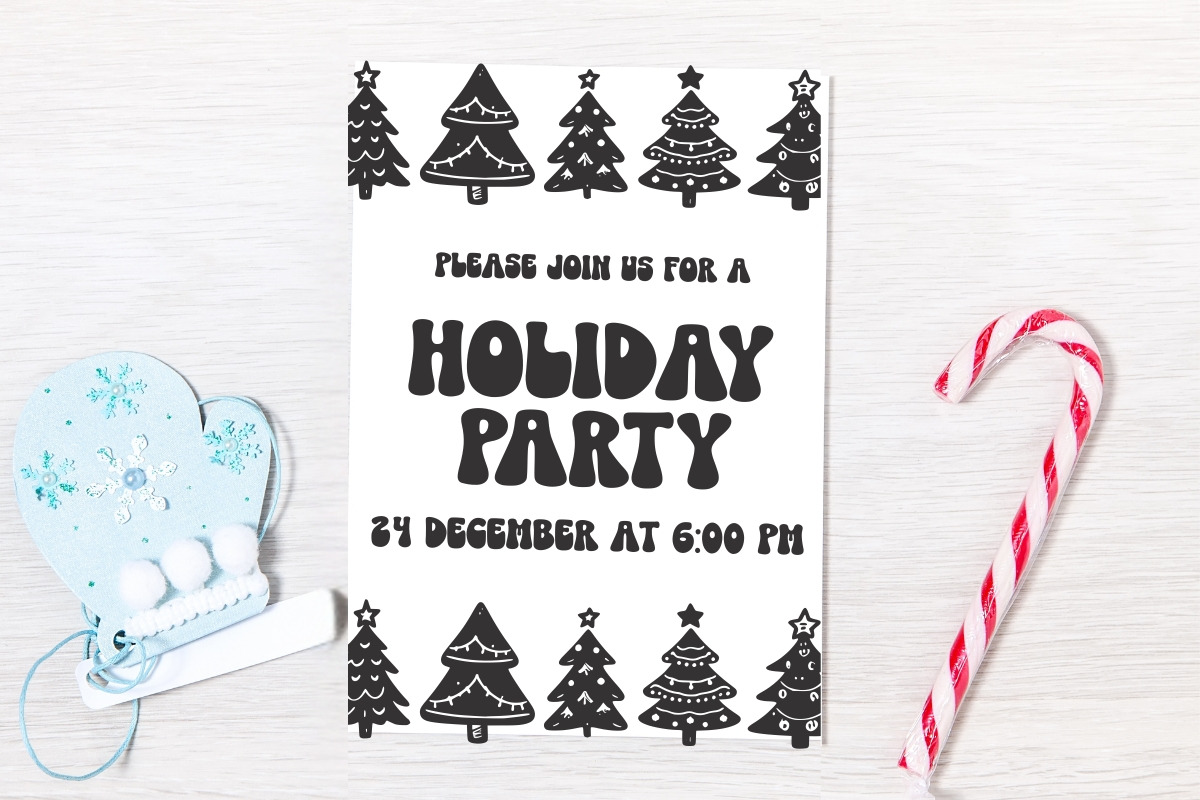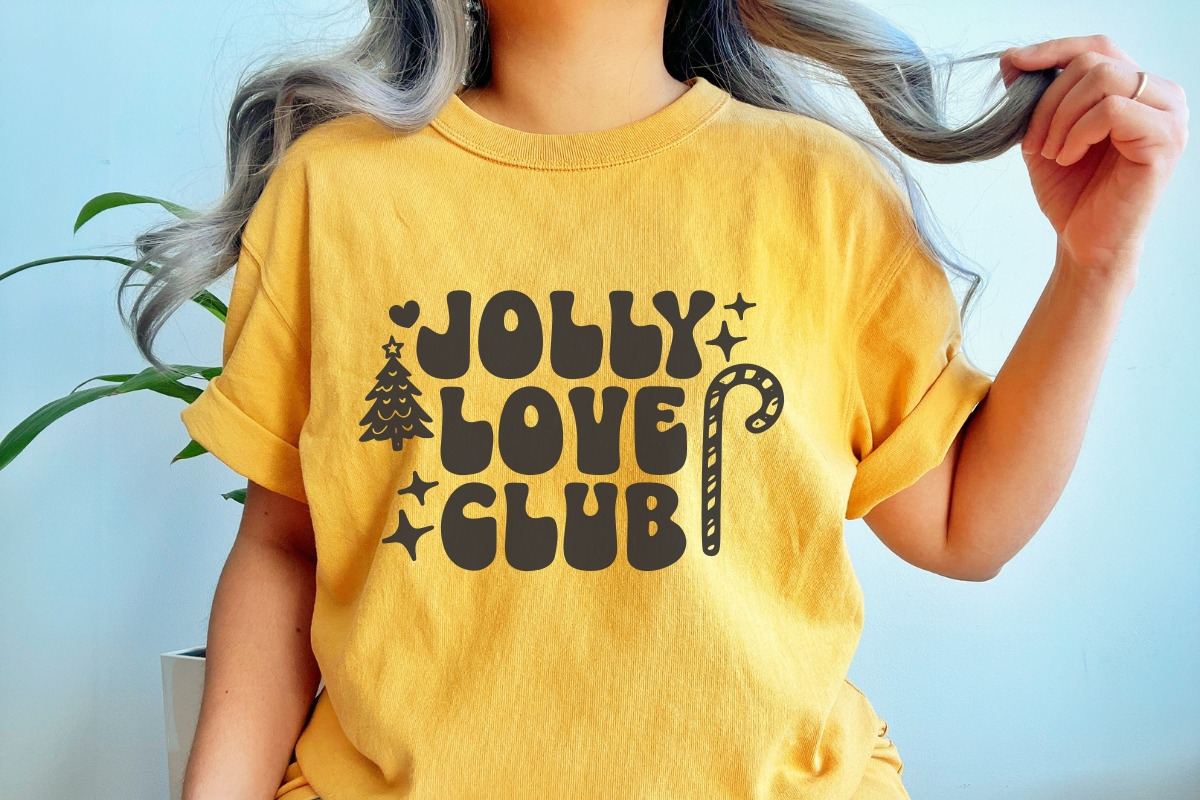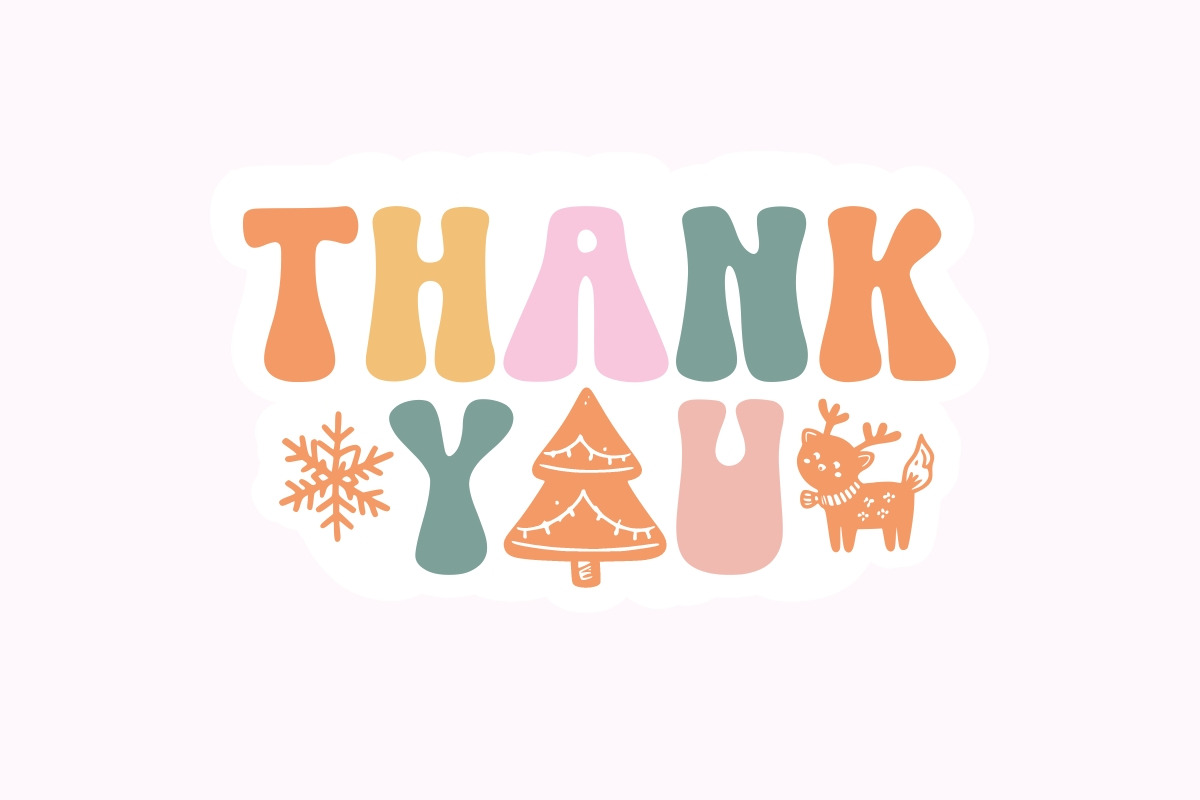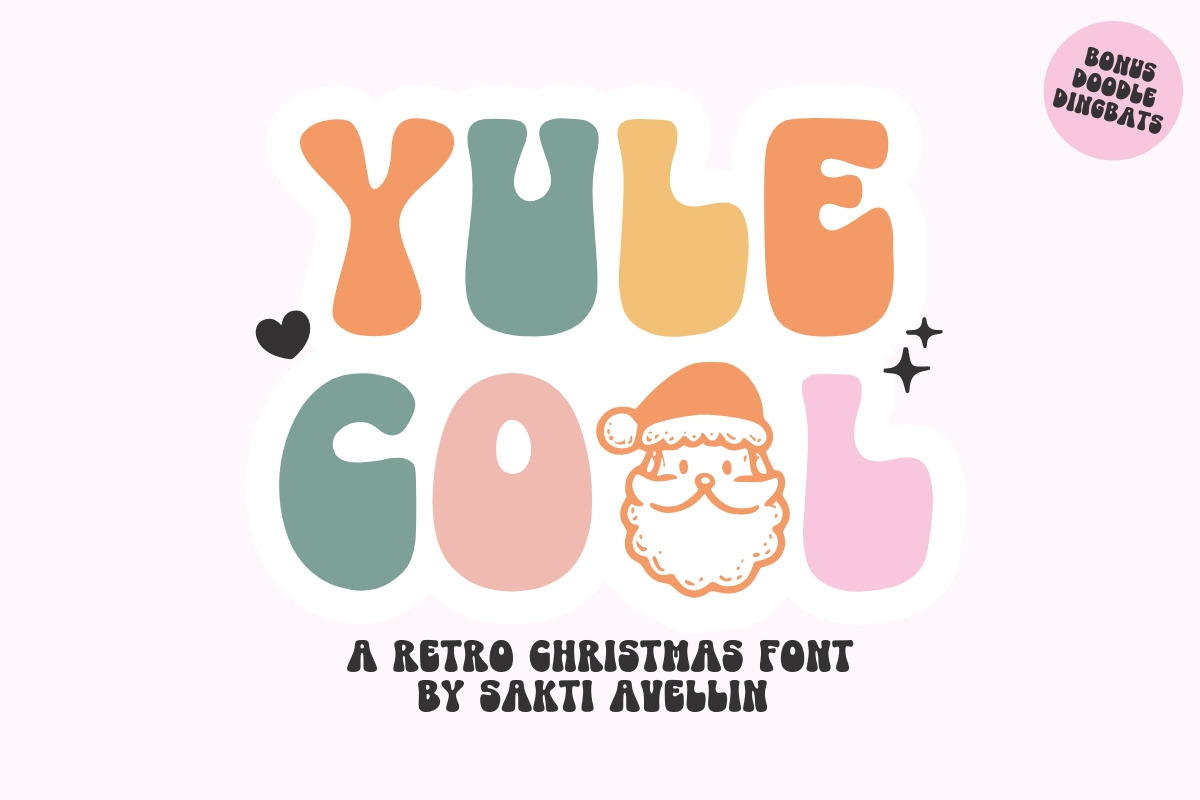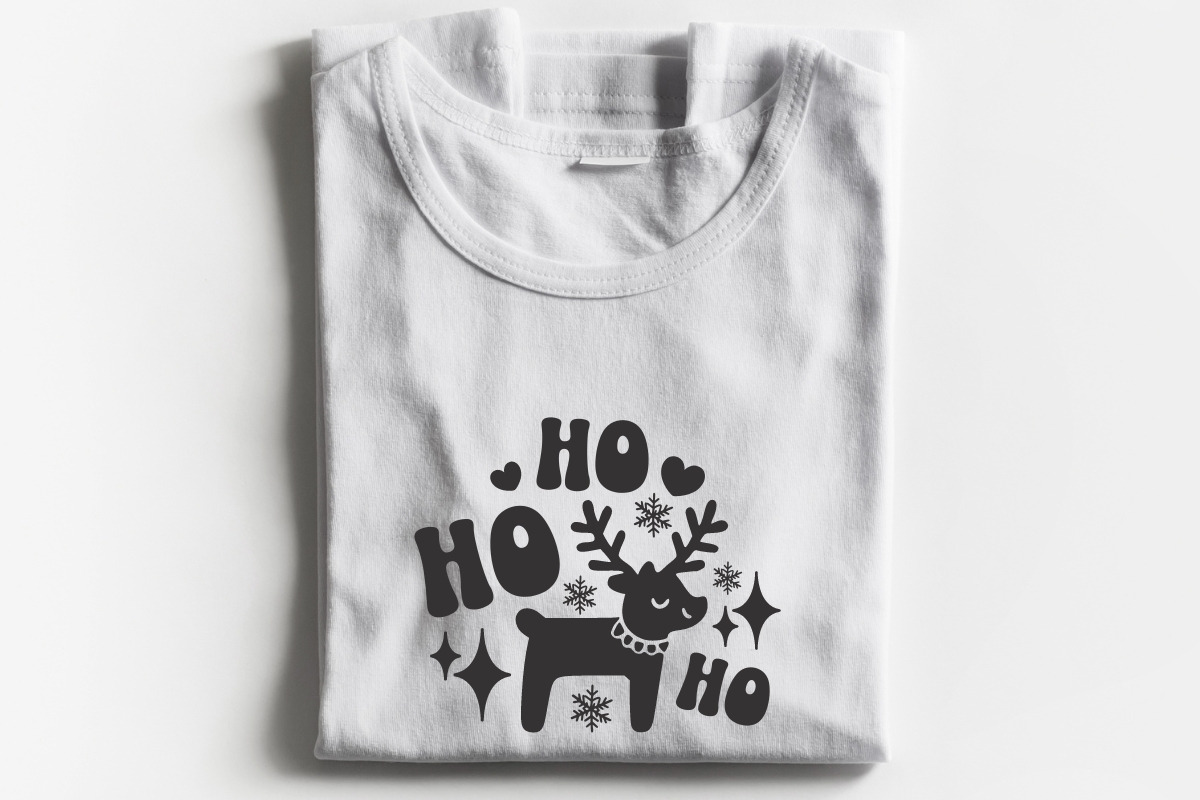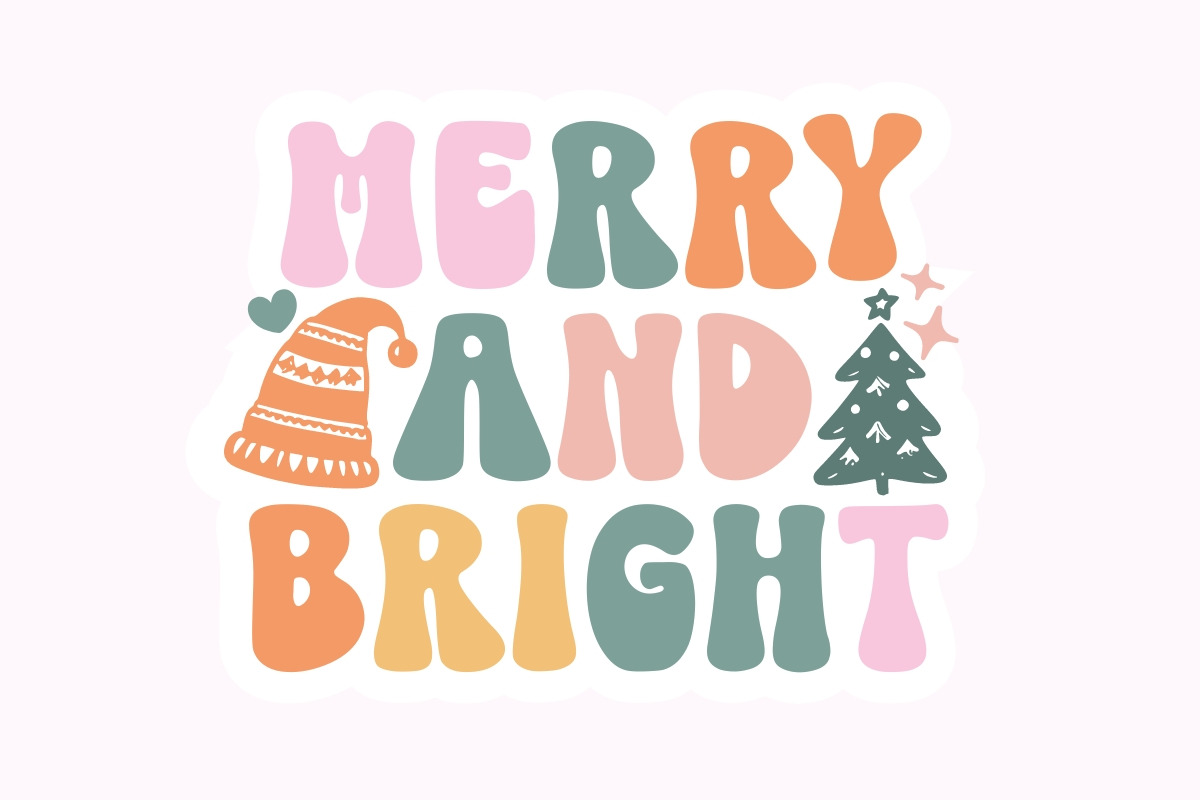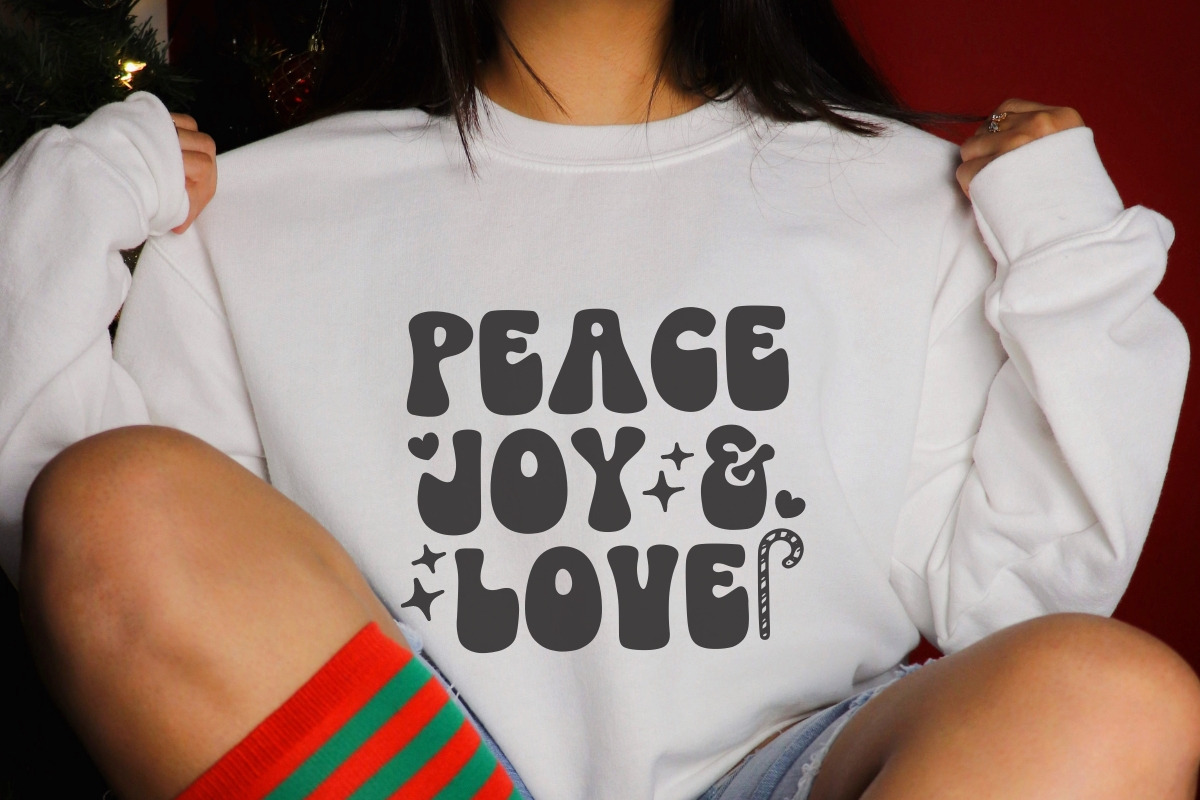
Yule Cool - Retro Christmas Font
Yule Cool is a vibrant, bubbly, and high-impact retro Christmas font designed to bring a groovy holiday spirit to your creative projects. This chunky display typeface features playful, rounded letterforms with a nostalgic 1970s vibe, making it an essential choice for holiday branding, festive t-shirt designs, winter posters, and cheerful social media graphics. It comes packed with bonus doodle dingbats, perfect for adding hand-drawn seasonal elements like Santa and stars to your work. Celebrate the season with the funky and joyful aesthetic of Yule Cool!